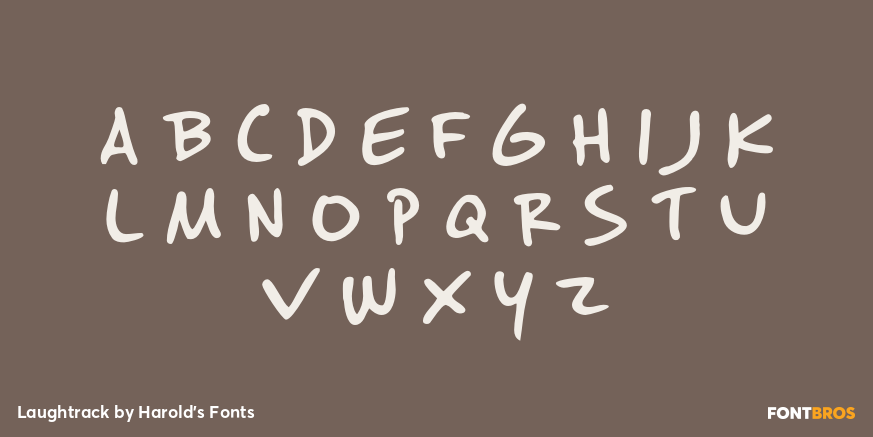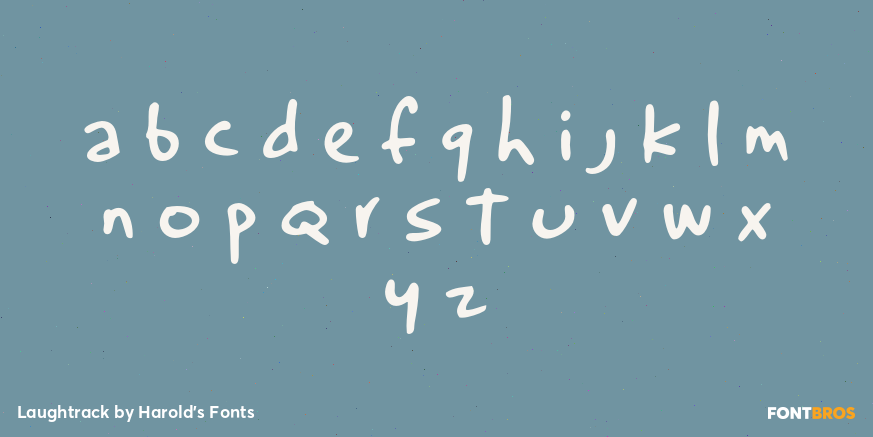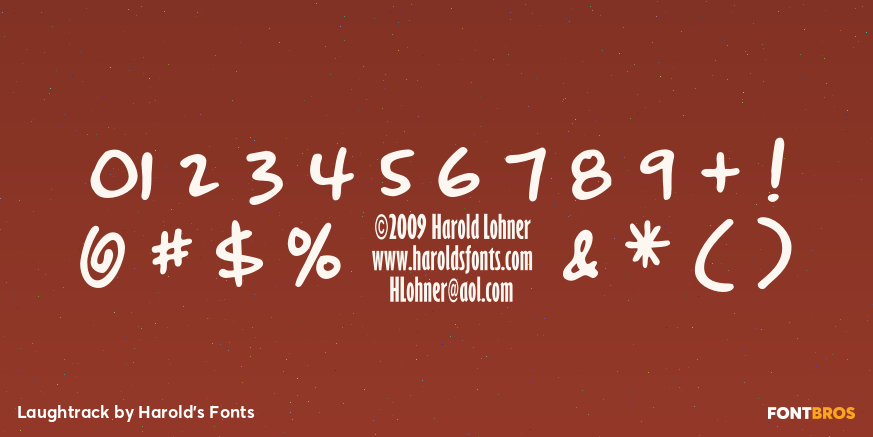
Laughtrack
Font Family by Harold's Fonts
LAUGHTRACK is a set of 3 fonts in a quirky, cartoon style that just says “funny”. Inspired by the work of Jerry Robinsson, whose "True Classroom Flubs and Fluffs"  was a highlight of the Sunday News comics section when I was a kid. Although he’s better known for his work in superhero comics, the “funnies” interest me more.
LAUGHTRACK is available in three weights: Light, Medium and Bold.